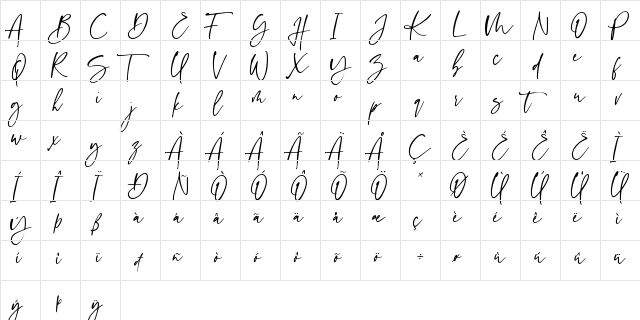
Sinthya Regular
Design Context for Sinthya Typeface
Sinthya is a composed and adaptable typeface that performs quietly and consistently across a wide range of design contexts.